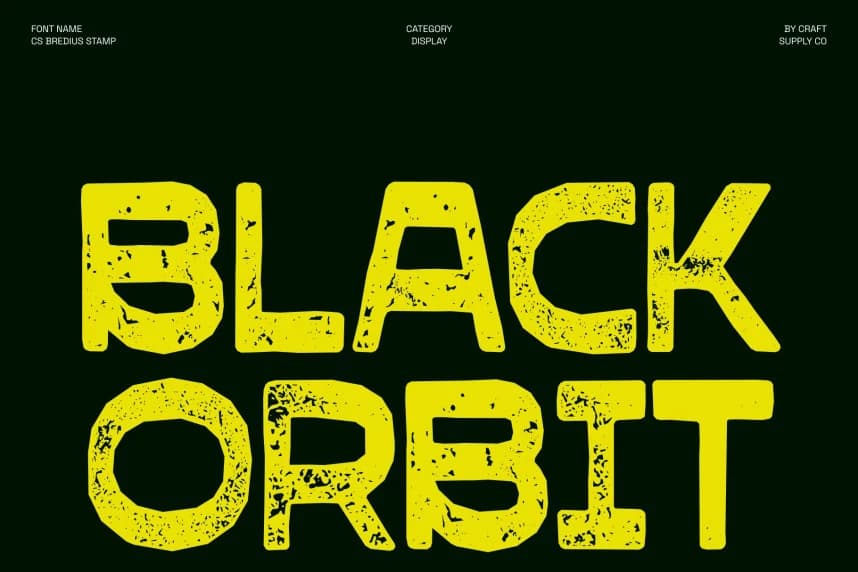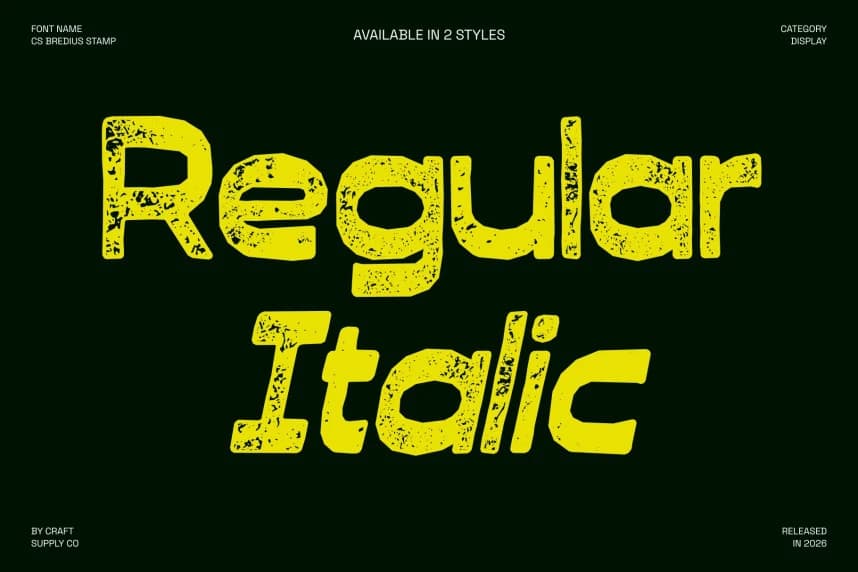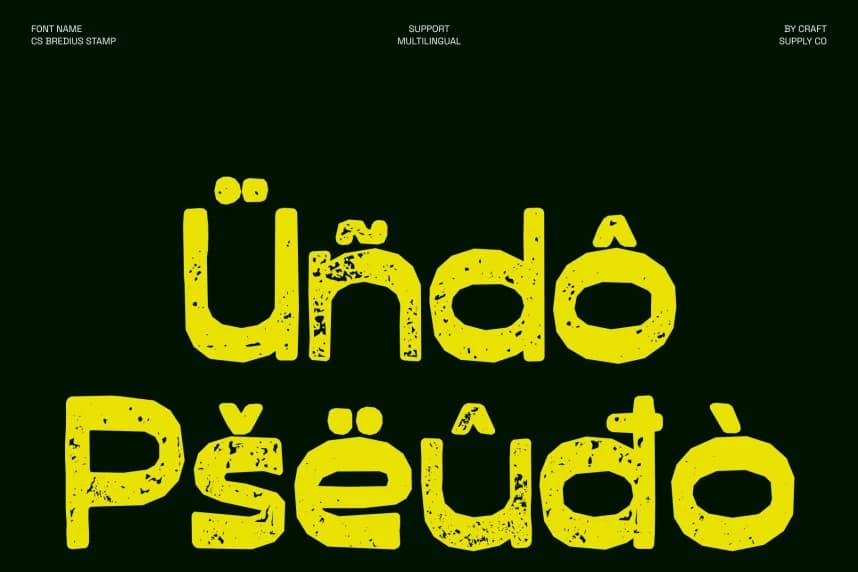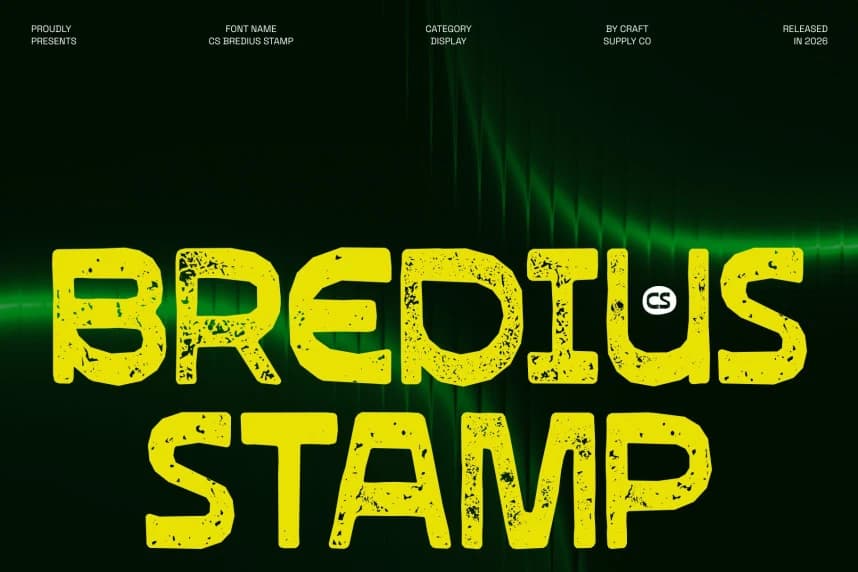
CS Bredius Stamp Font – Quirky Display with Textured Creative Charm Playful Personality with a Stamped Edge This enhances its cheerful, unconventional style with a subtle stamped texture that adds depth and handcrafted authenticity.